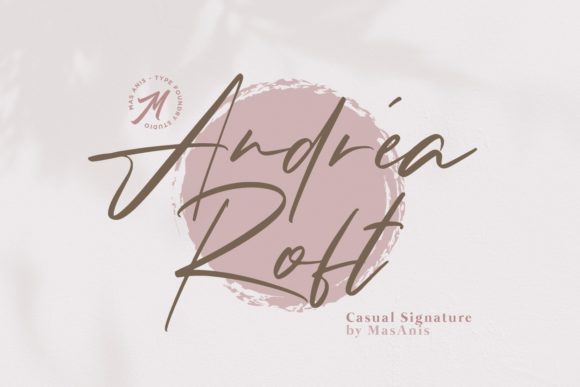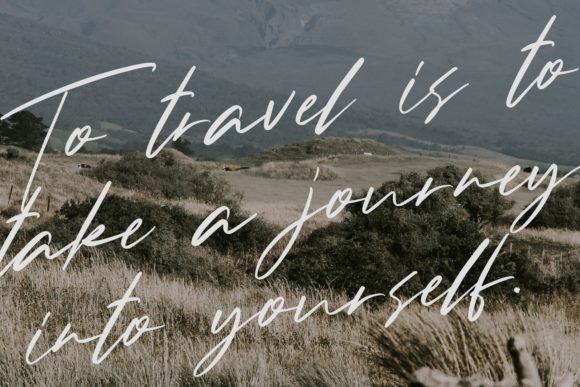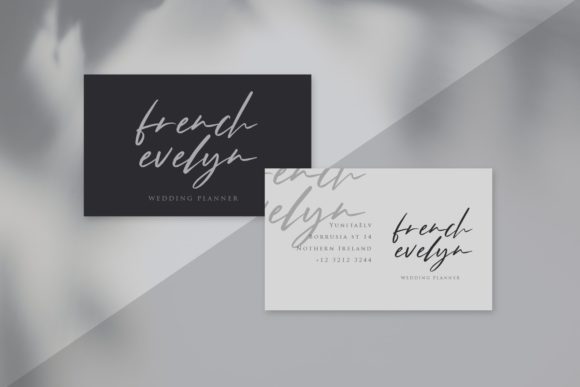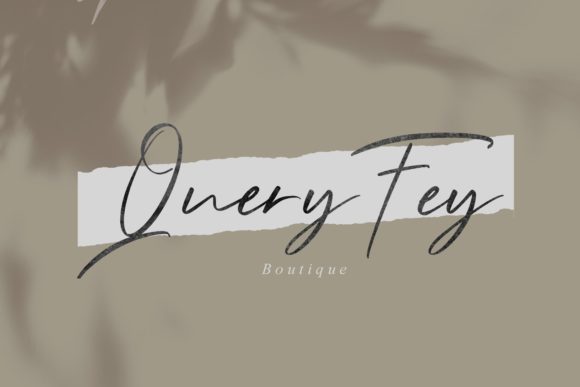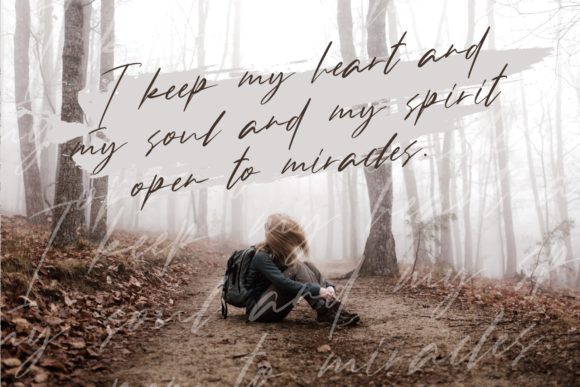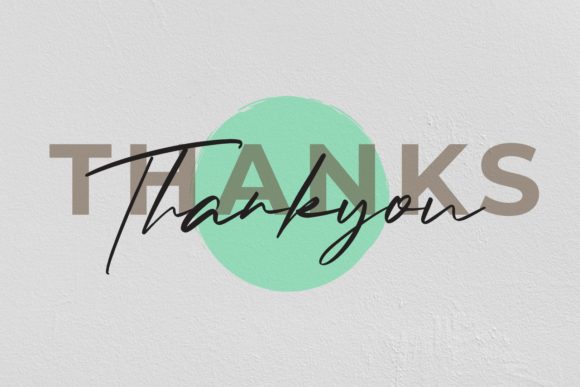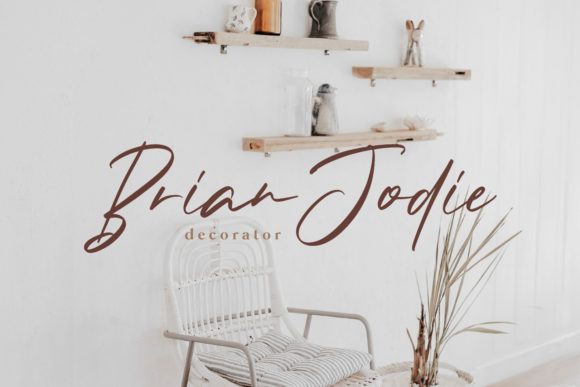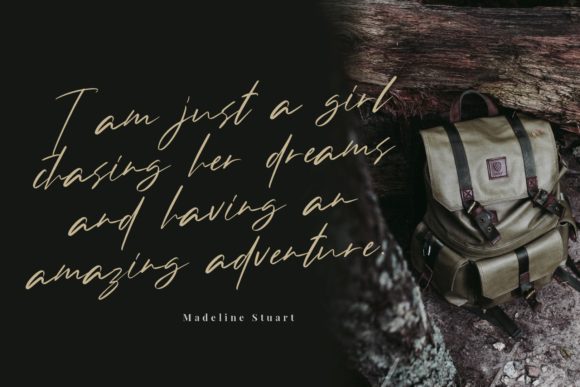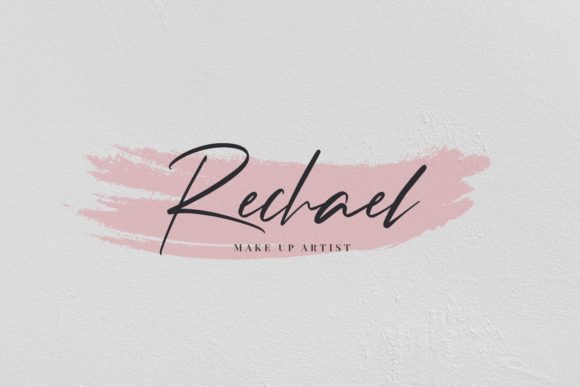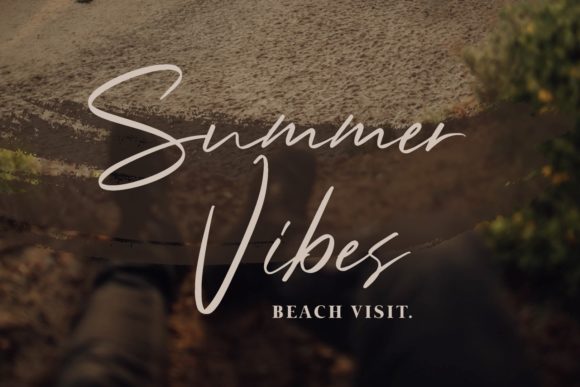
HomeScript FontsAndrea Roft Font Script Fonts Andrea Roft Font FacebookXPinterestWhatsApp Andrea Roft Font Poster 2 Andrea Roft Font Poster 3 Andrea Roft Font Poster 4 Andrea Roft Font Poster 5 Andrea Roft Font Poster 6 Andrea Roft Font Poster 7 Andrea Roft Font Poster 8 Andrea Roft Font Poster 9 Andrea Roft Font Poster 10 Andrea Roft Font Poster 11 Andrea Roft Font Poster 12 Andrea Roft Font Poster 13 Andrea Roft Font Poster 14 About Andrea Roft Font Andrea Roft is a stunning and fun handwritten font with a bold feel. Get inspired by its unique charm! DOWNLOAD ON CREATIVE FABRICAThis font is sold and delivered by Creative Fabrica. Font Canyon may earn a commission if you buy through this link. People also explored Shadow Hunter Font Sporthing Font Oh Snap Font Seven Loves Font Monkeystand Font American Beauty Font Rever Font Hotel Font Bellisha Smith Font 396 0 TagsAndrea Roft Font Previous articleAmazing Mother FontNext articleRealistica Font LEAVE A REPLY Cancel reply Comment: Please enter your comment! Name:* Please enter your name here Email:* You have entered an incorrect email address! Please enter your email address here Website: Save my name, email, and website in this browser for the next time I comment. Personal Use Free Sehat Selalu Personal Use Free Read more about this font Cinderella Personal Use Free Read more about this font Cintya Personal Use Free Read more about this font Messy Personal Use Free Read more about this font BLOG Fonts That Capture the Spirit of New York City New York City is more than just a place—it’s an experience, a rhythm, a visual language... Exploring Font Trends The 10 Best Handwriting Fonts to Add Personality to Your Designs Free vs Paid Fonts: Why Investing in Premium Fonts Is Worth It